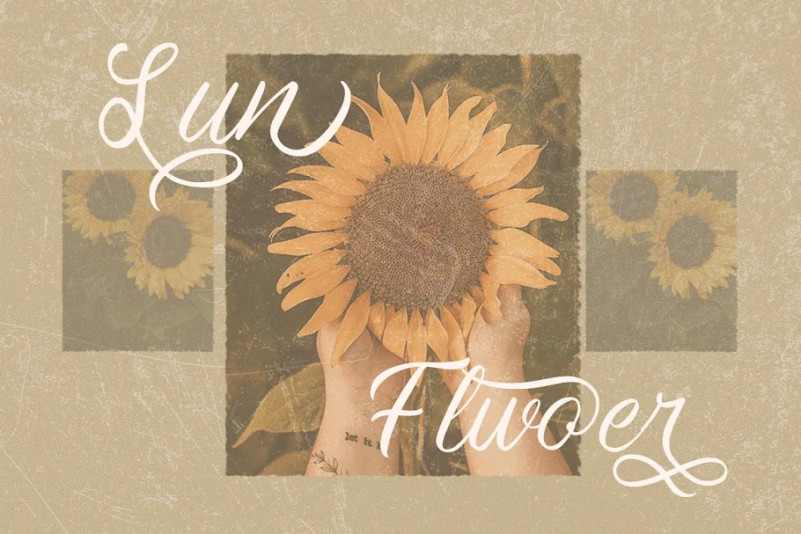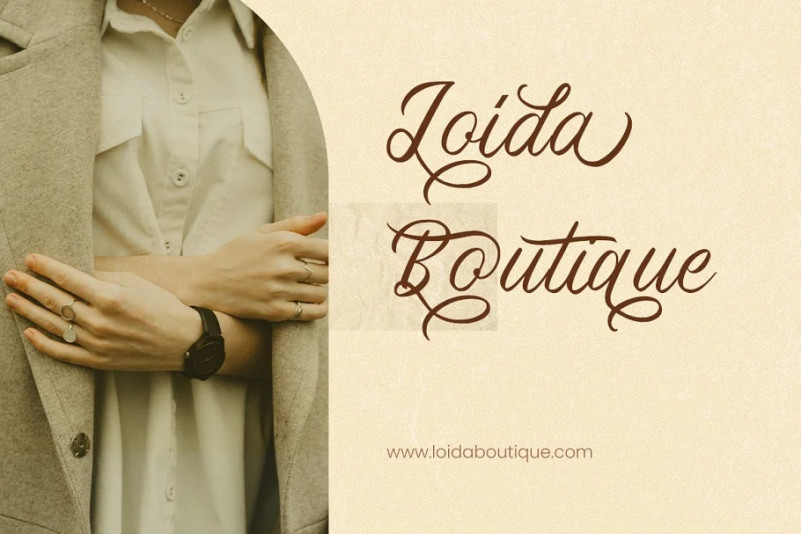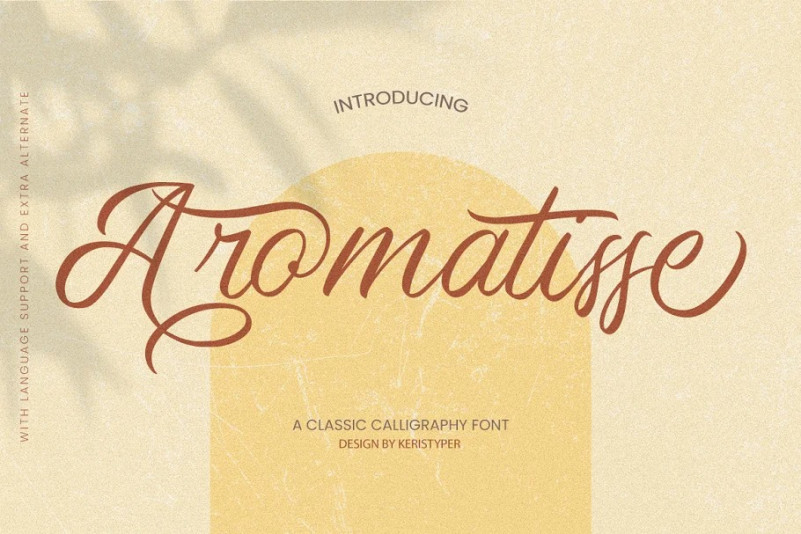
Aromatisse Font
Proudly introducing Aromatisse Script Font, a classic calligraphy font. This classic font is handwritten under the inspiration of traditional calligraphy and the Vintage Era. In general, it creates a luxurious and elegant design look.